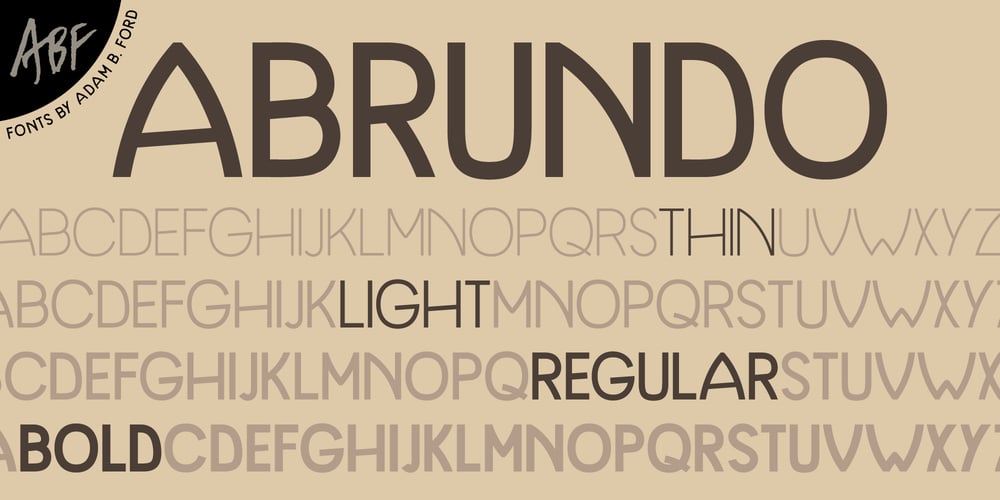
Abrundo
Abrundo font
Abrundo Font Family was designed by Adam B. Ford and published by Adam B. Ford. Abrundo contains 8 styles and family package options. Abrundo is a clean sans-serif with arced and angled lines throughout, giving it a slightly playful look.Four styles with the italics having an arc to the verticals.